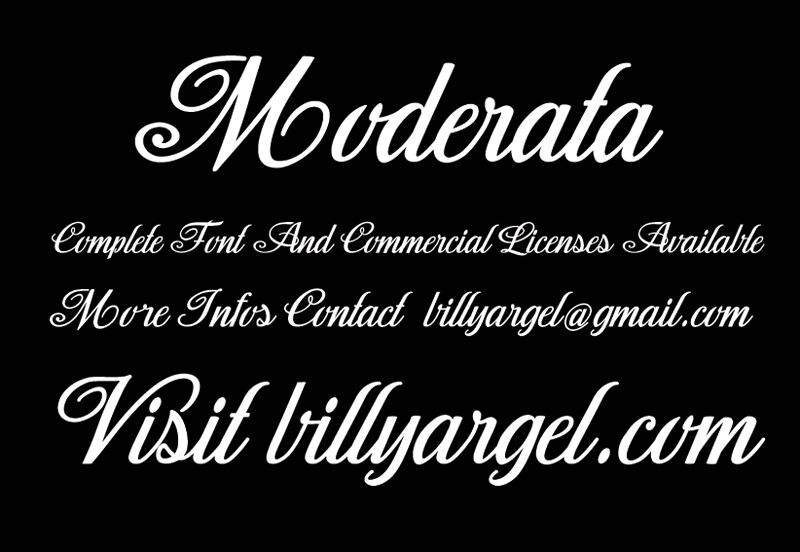
Moderata, a captivating calligraphic font designed by the talented Billy Argel, exudes a harmonious blend of elegance and modernity. This striking typeface boasts sweeping, graceful strokes that effortlessly capture the essence of handwritten expression. The seamless flow of its letterforms creates a visually captivating and visually appealing aesthetic, making it a standout choice for projects seeking a touch of refined sophistication.
Moderata's versatility extends across a wide range of design applications, from sophisticated editorial layouts and high-end branding to enchanting wedding invitations and enchanting stationery. Its calligraphic flair lends an air of timeless charm, making it a natural fit for projects that require a harmonious balance of tradition and contemporary style.